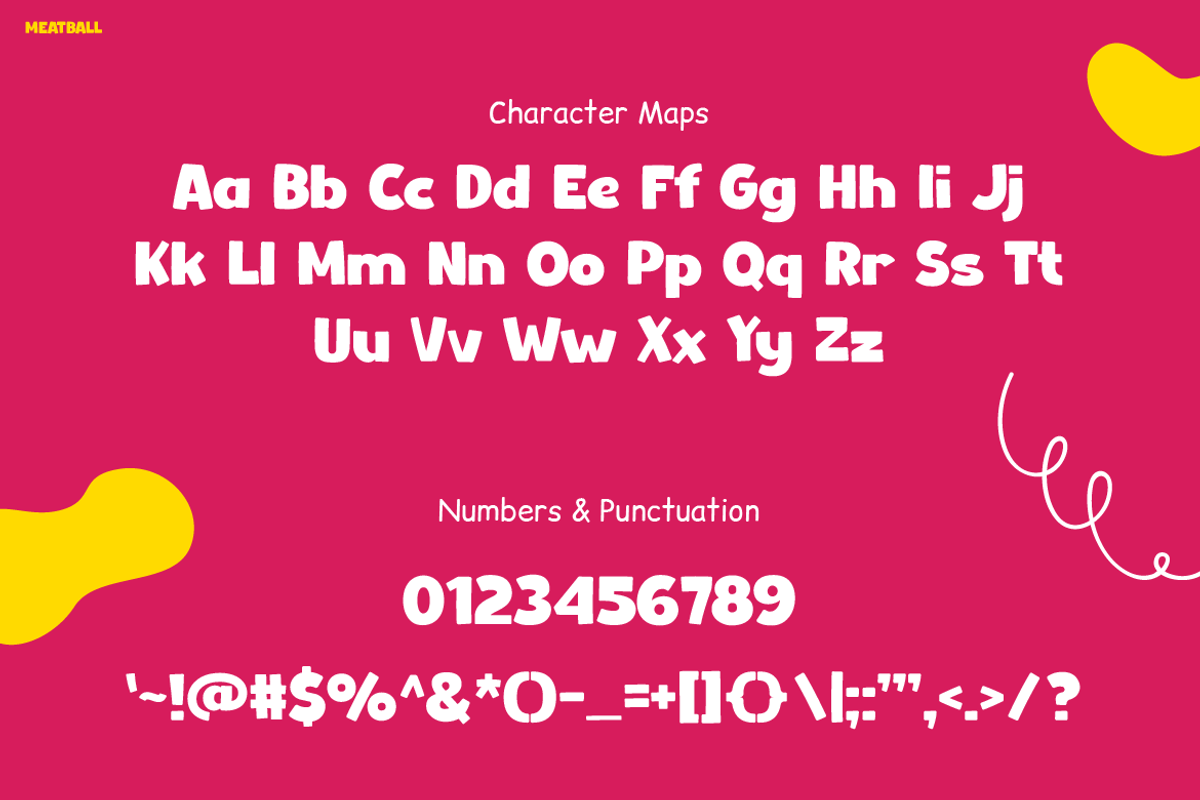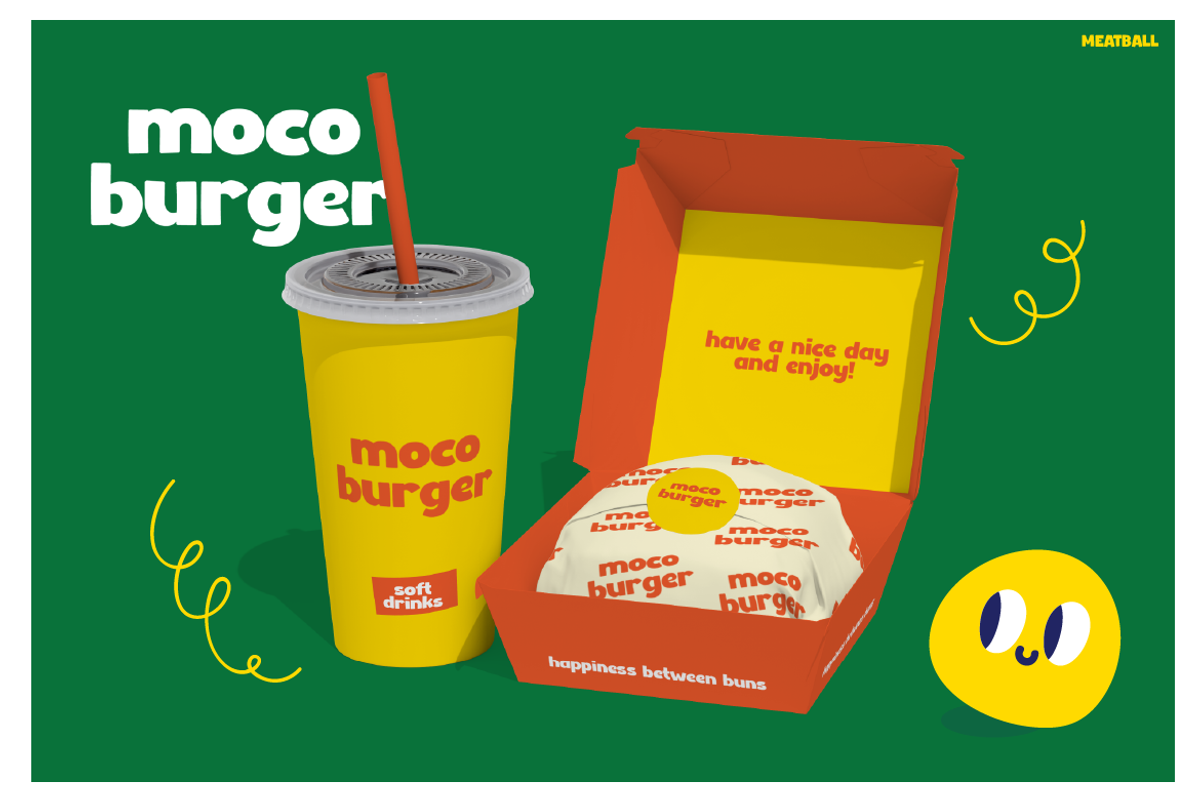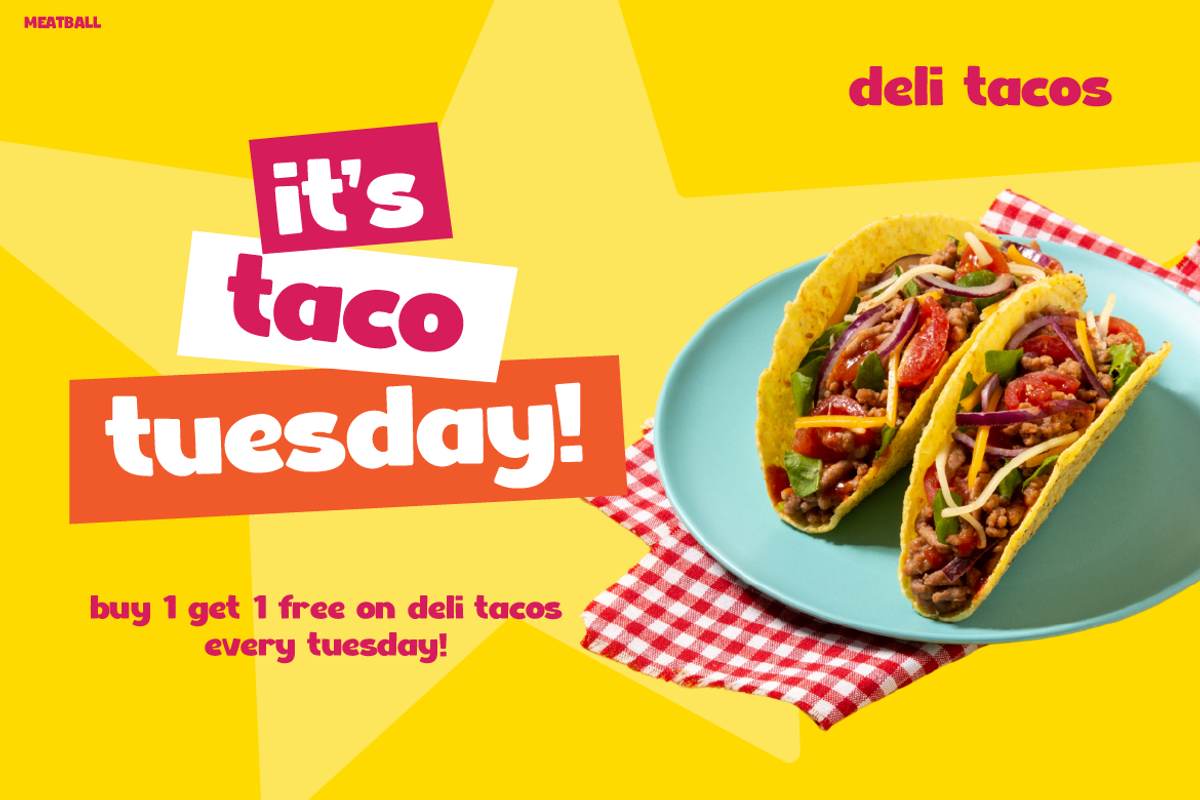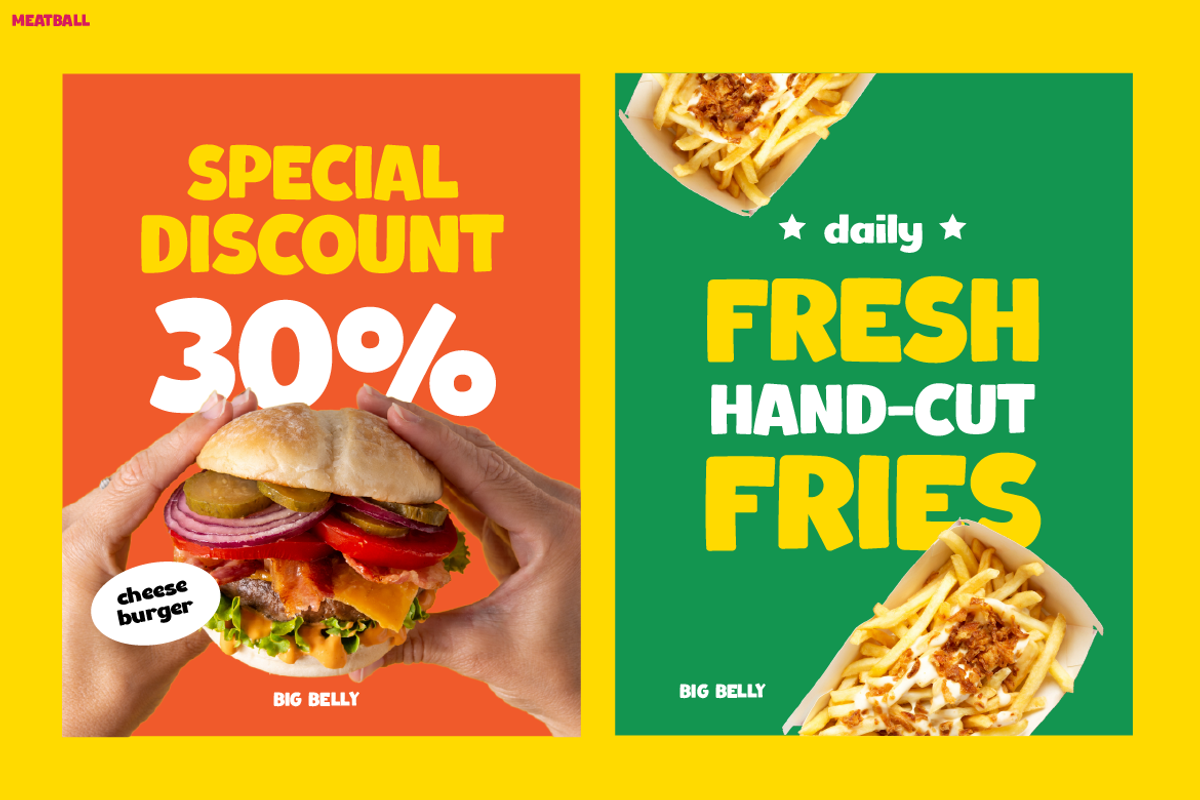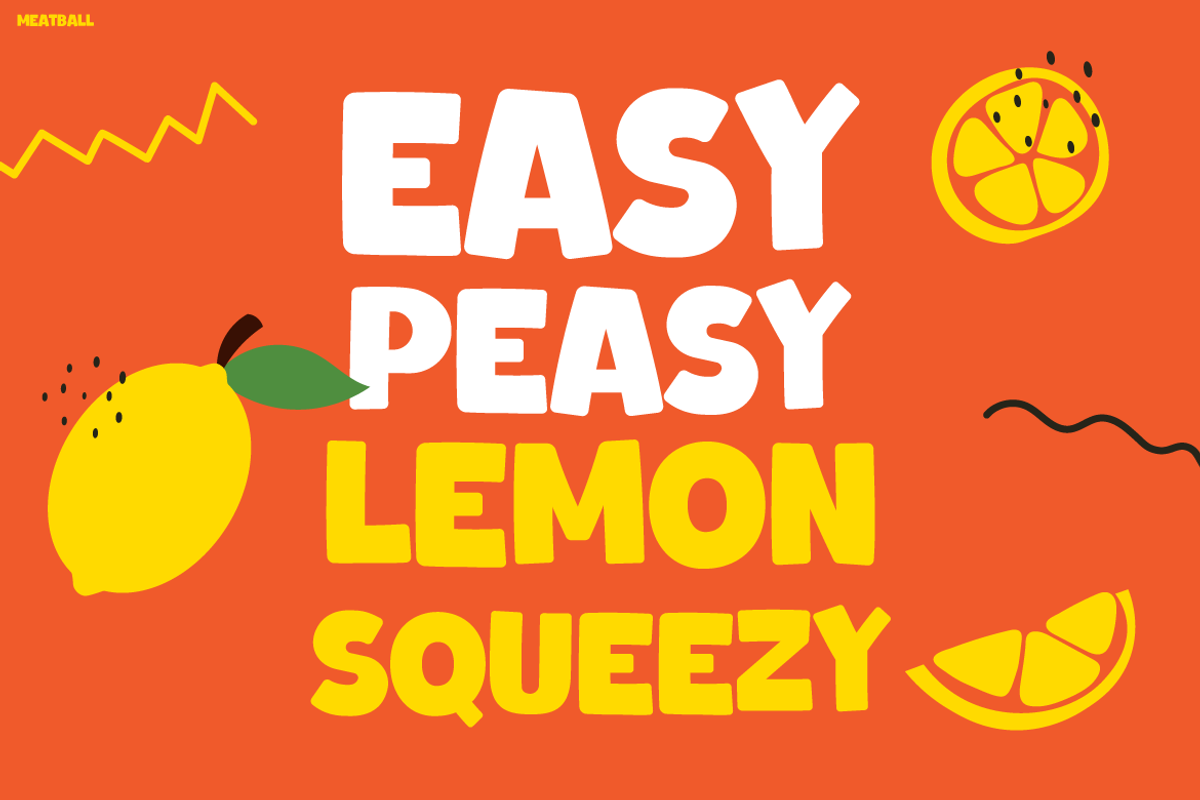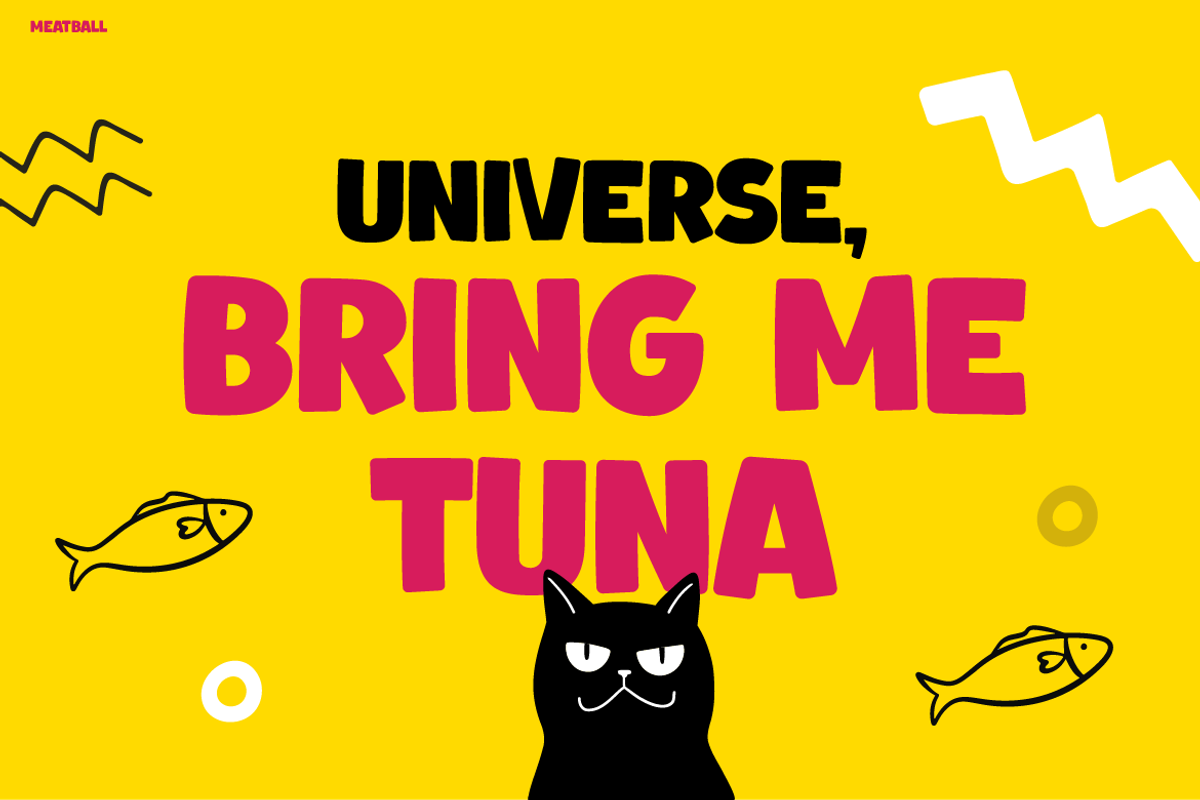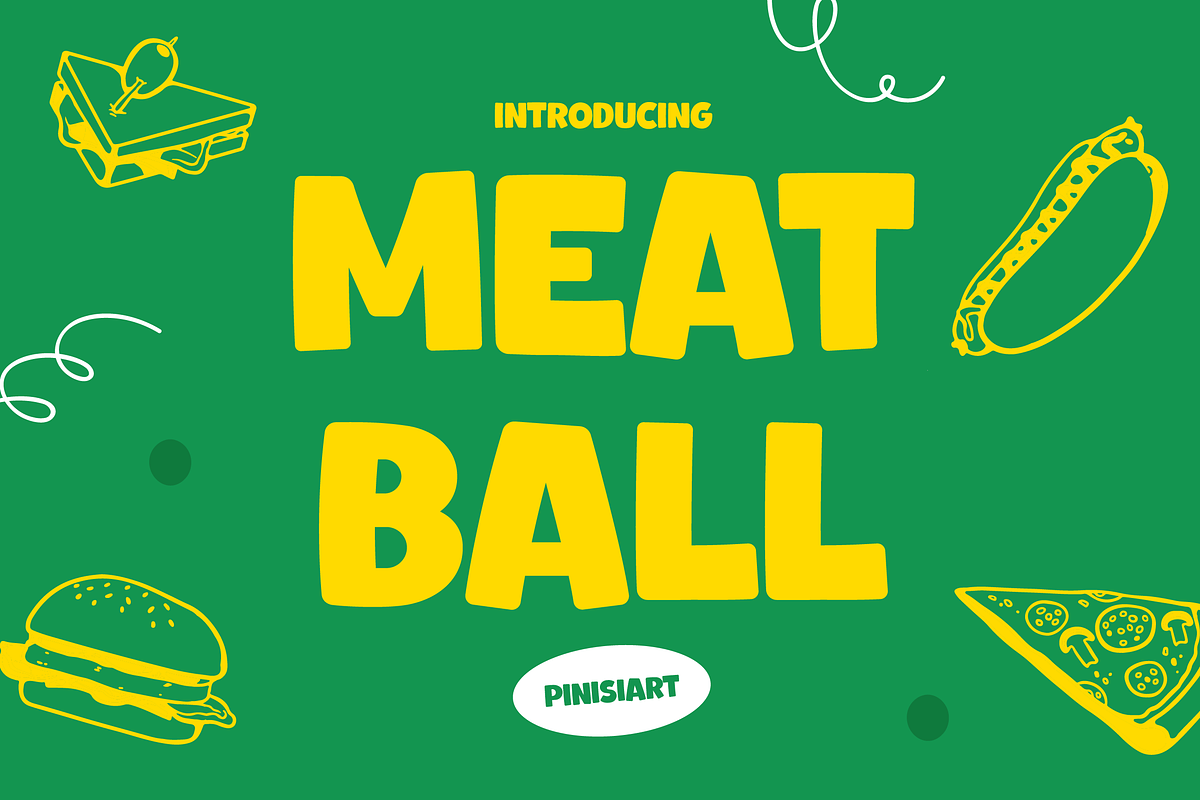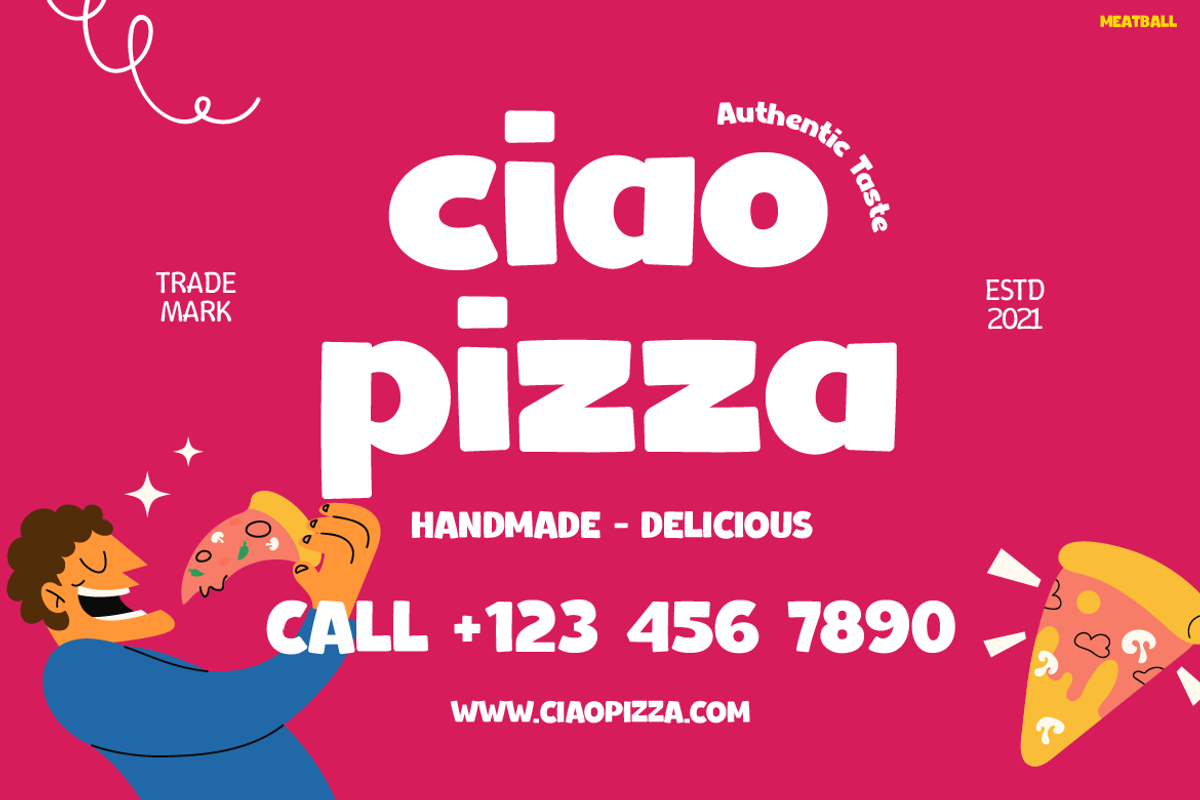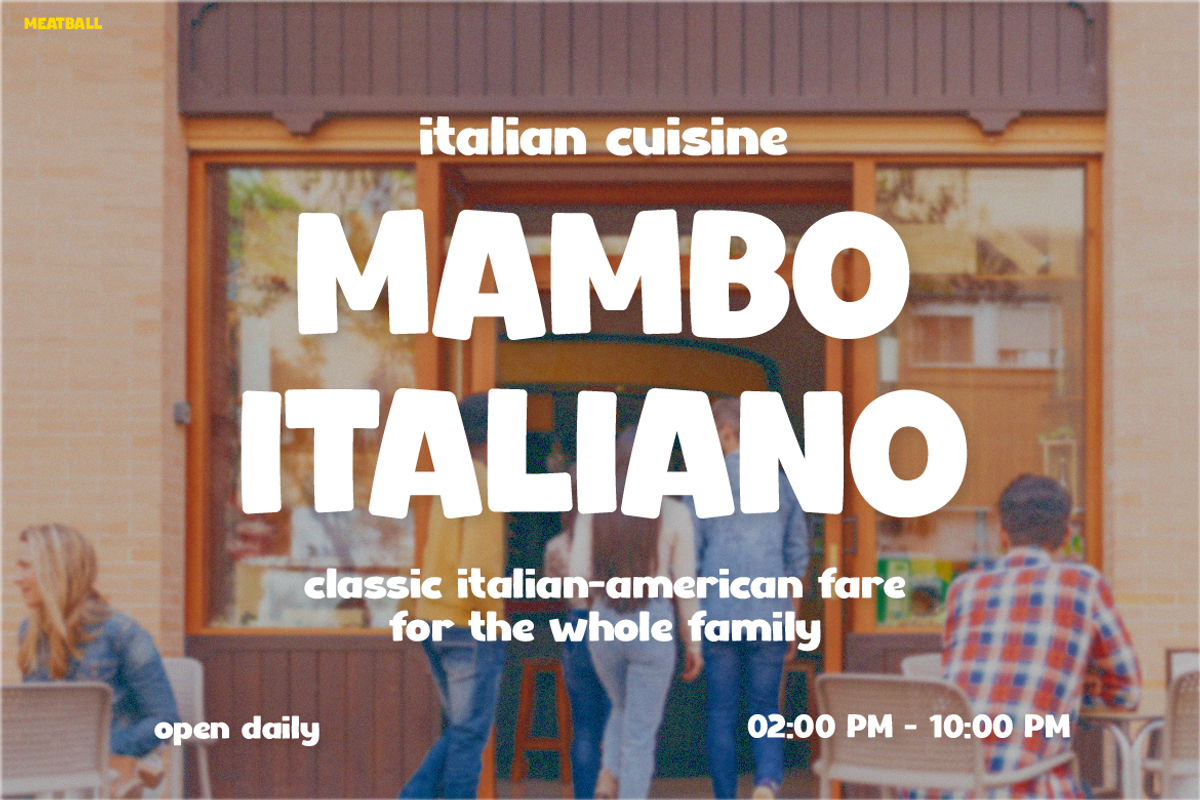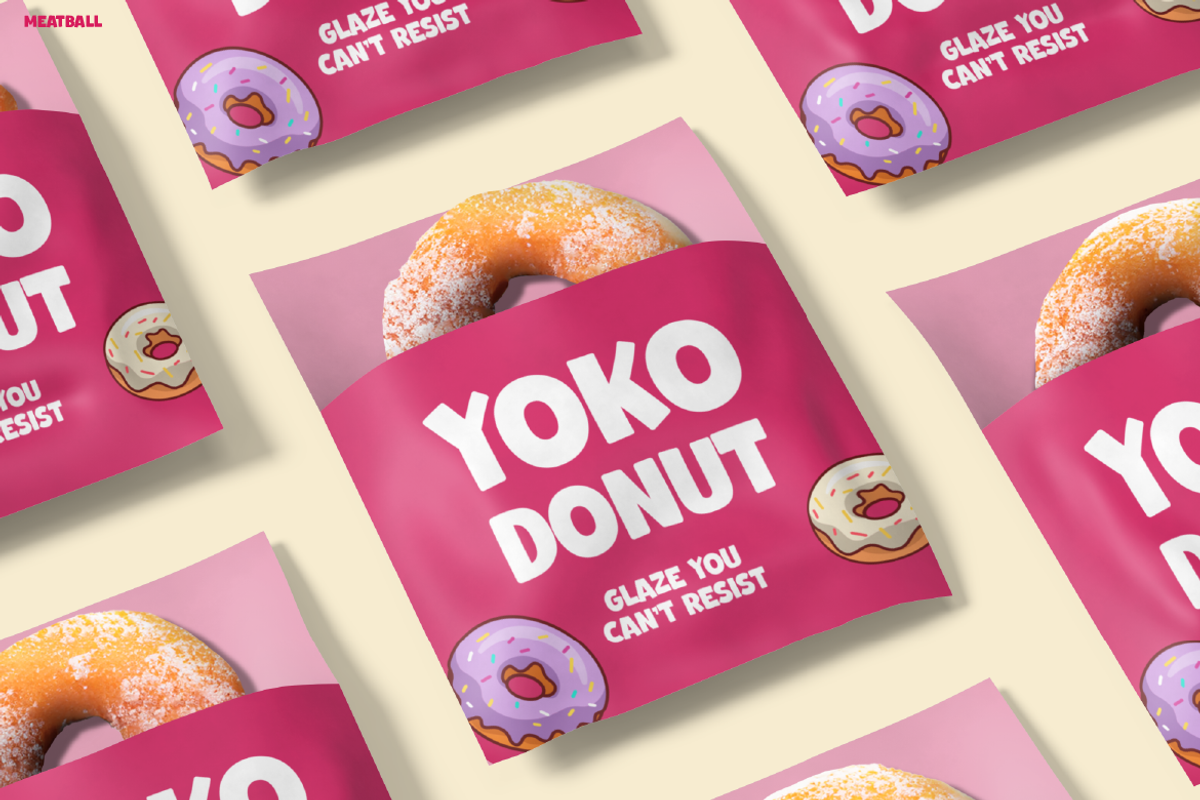
Meatball
Kids Font Meatball – Playful Flavor in Every Letter! Kids Font Meatball is a bright, bold, and fun display font that instantly captures attention. Its chunky letters and smooth rounded edges give every word a joyful, welcoming look. Moreover, the clean and curvy lines bring out a sense of warmth and friendliness, making this font perfect for projects that aim to feel cheerful and approachable. Each character is designed with a delightful rhythm that adds energy and excitement to your designs. As a result, your text not only stands out visually but also feels full of personality and life. In addition, the font’s playful structure and soft geometry make it versatile for both digital and print media. Whether you’re creating a logo, poster, or packaging, it adds a modern yet childlike charm that’s hard to ignore. Its thick strokes maintain strong readability even at smaller sizes, which helps your message stay clear and impactful in any setting.